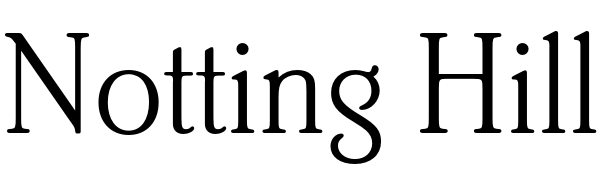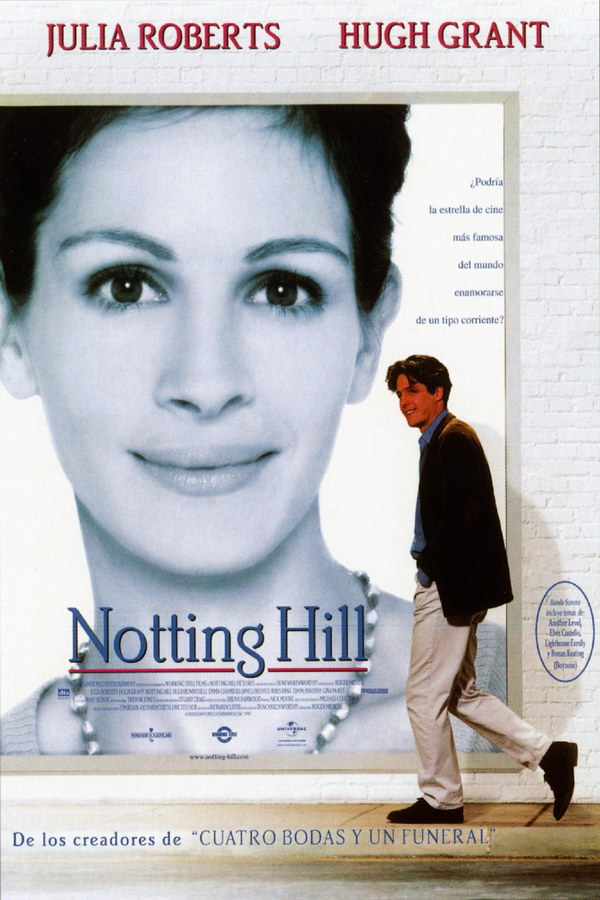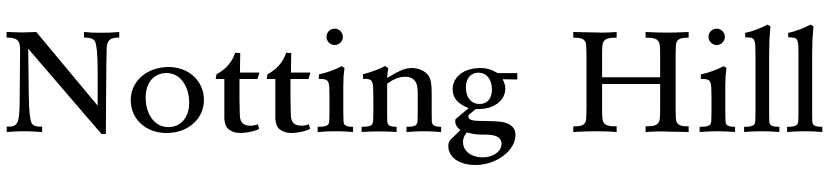
Notting Hill Font
Fonts in UseNotting Hill is a romantic comedy film released in 1999, starring Julia Roberts and Hugh Grant. The movie follows the unlikely love story between a famous American actress and a British bookstore owner in the vibrant Notting Hill neighborhood of London.
The font used for the movie title on the poster resembles Alan Bright's Brighton Light typeface. Conversely, the US version's poster title is displayed in a font similar to Garamond Extra Wide Medium. Both are commercially available and further information on these fonts can be found here and here respectively.